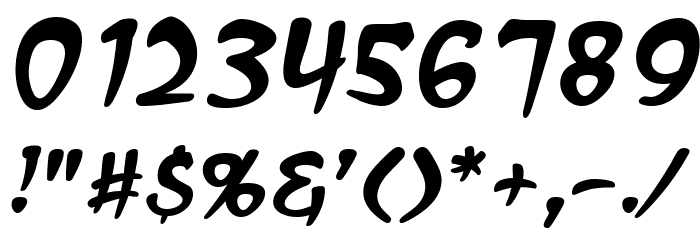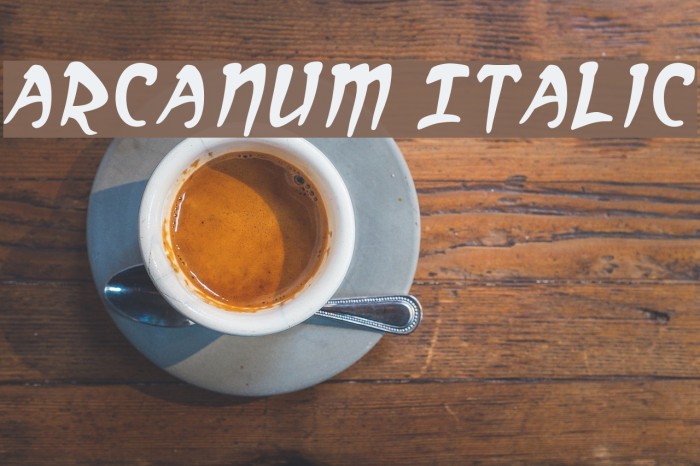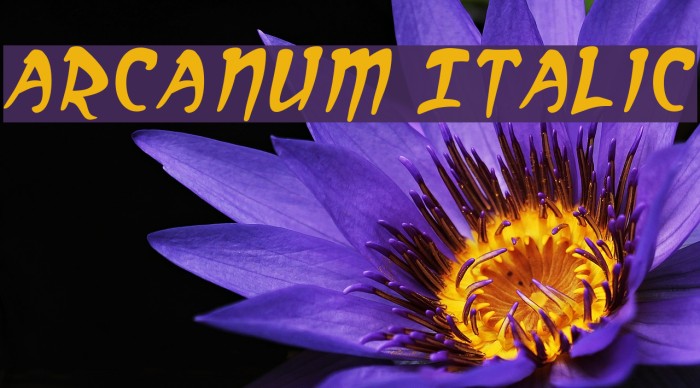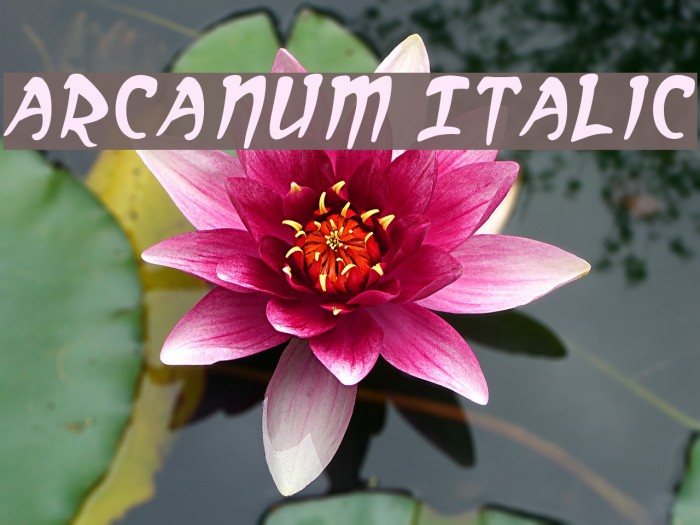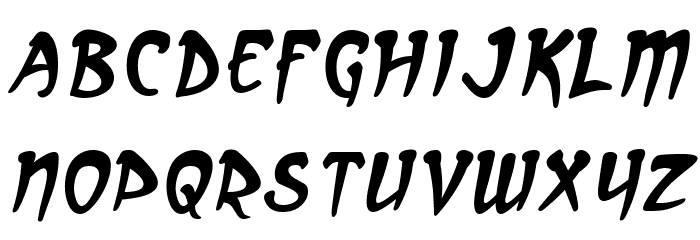
Arcanum Italic Font
This font features a dynamic and energetic style with a distinct italic slant, giving it a sense of motion and fluidity. The characters are bold and expressive, with a slightly condensed form that enhances their impact. The strokes are thick and consistent, providing a strong visual presence. The overall design is modern and slightly edgy, making it suitable for projects that require a bold statement. The font includes a full set of uppercase and lowercase letters, numerals, and a variety of special characters, ensuring versatility in its application.
A bold, italic font with a dynamic and modern style.
• Proposed Projects: Ideal for branding, posters, headlines, and any design that requires a strong, impactful font.
• Category: Decorative/Display
• Bold: Yes
• Italic: Yes
• Weight: Bold
• Width: Condensed
• Character Spacing: Normal
• Contrast: Low
• Overall Style: Modern
• Use Case: Headlines, Logos, Posters